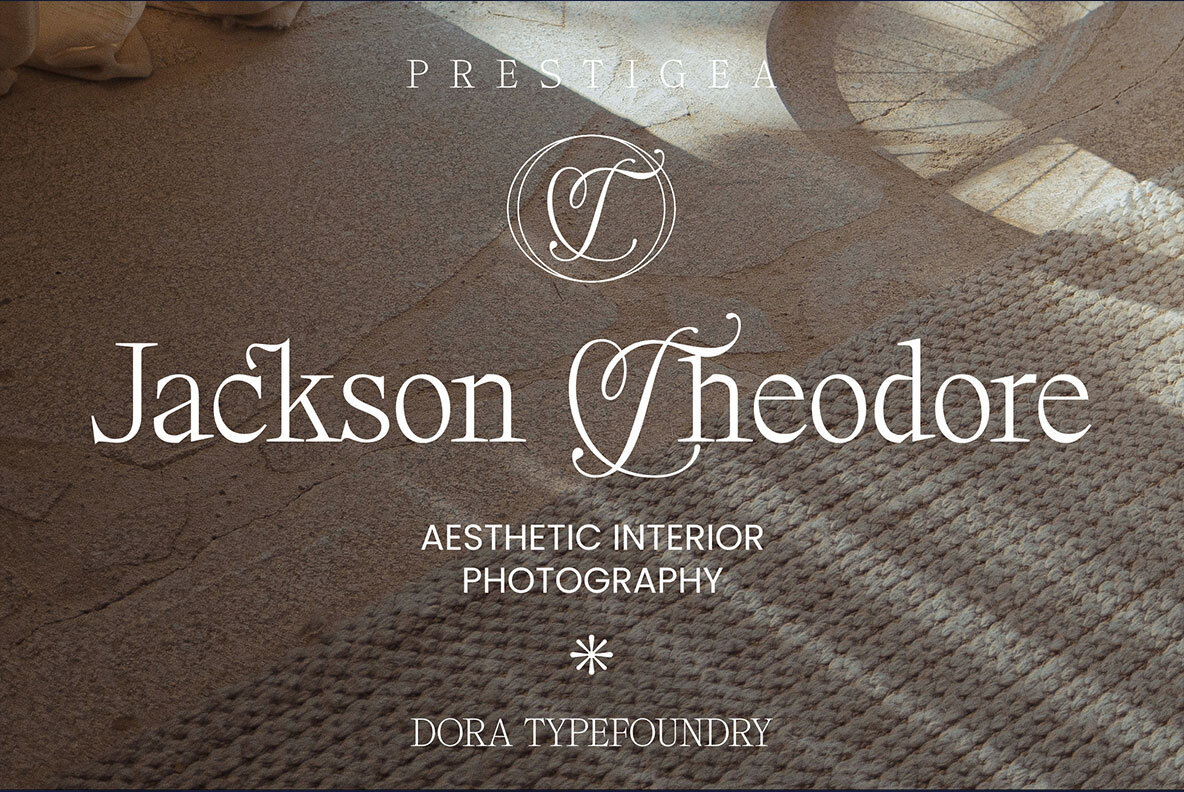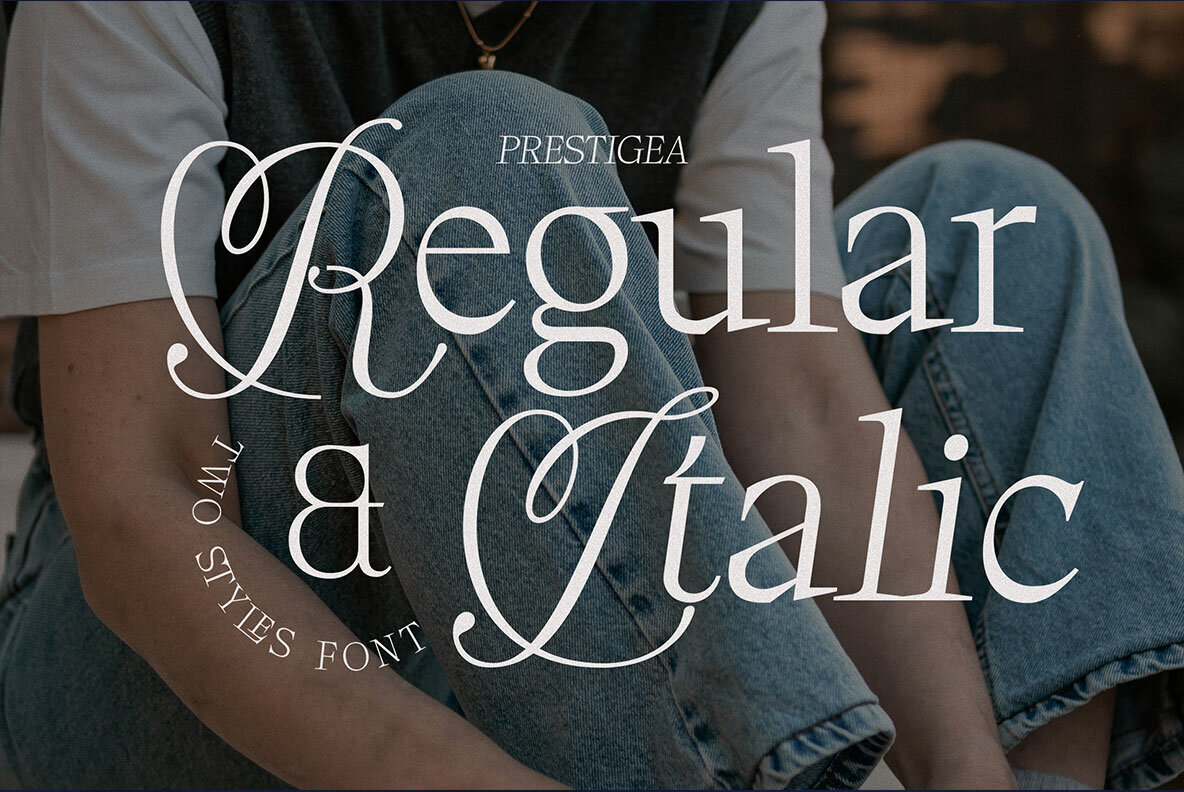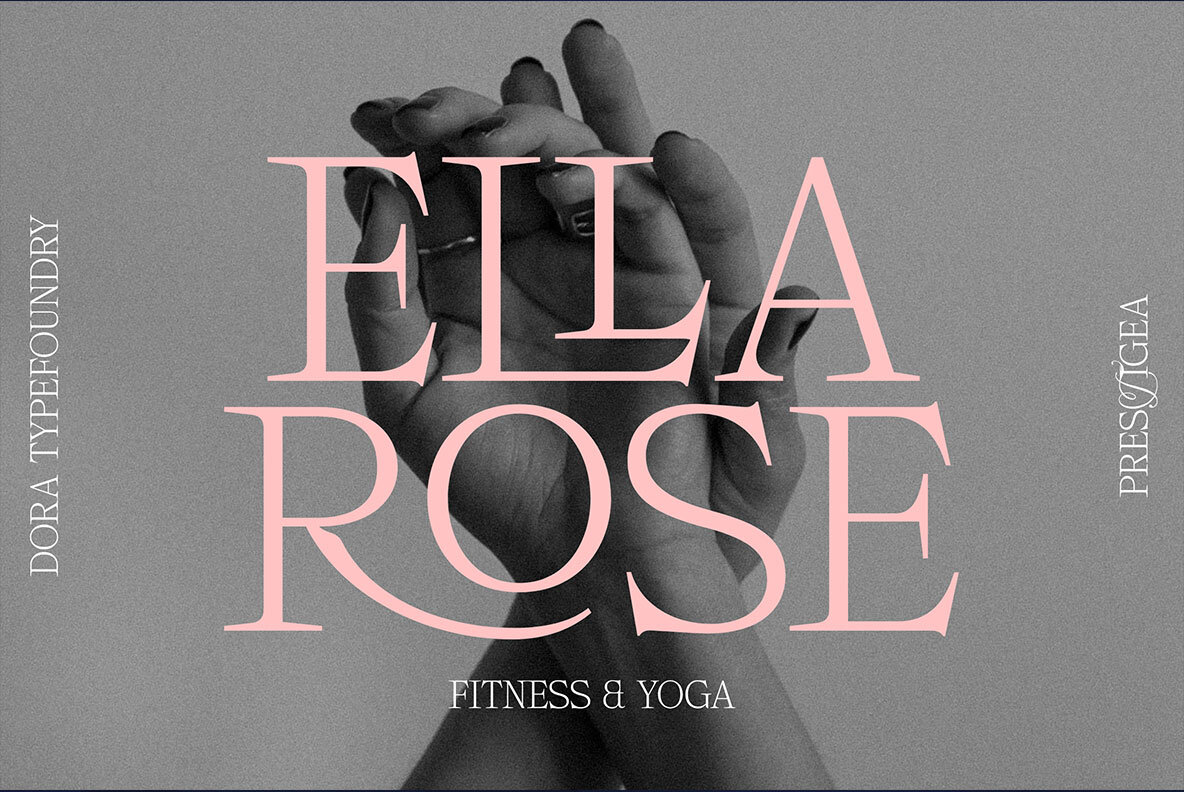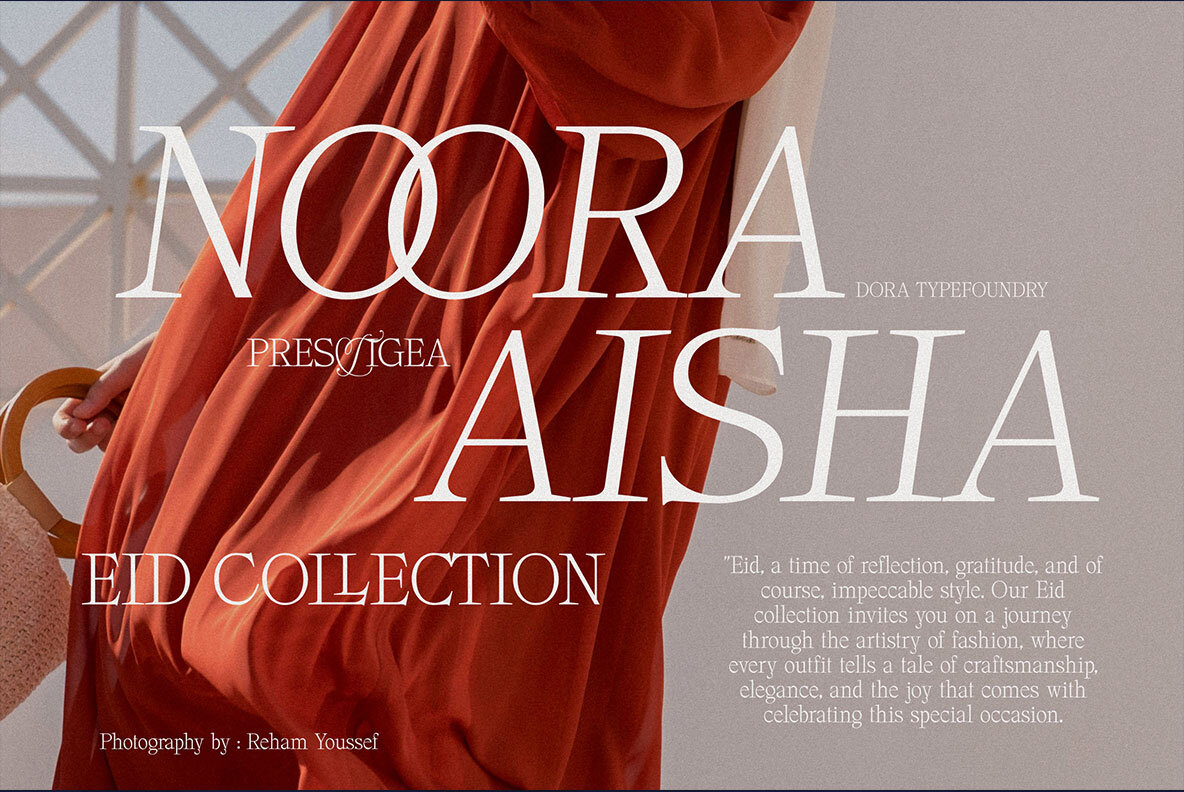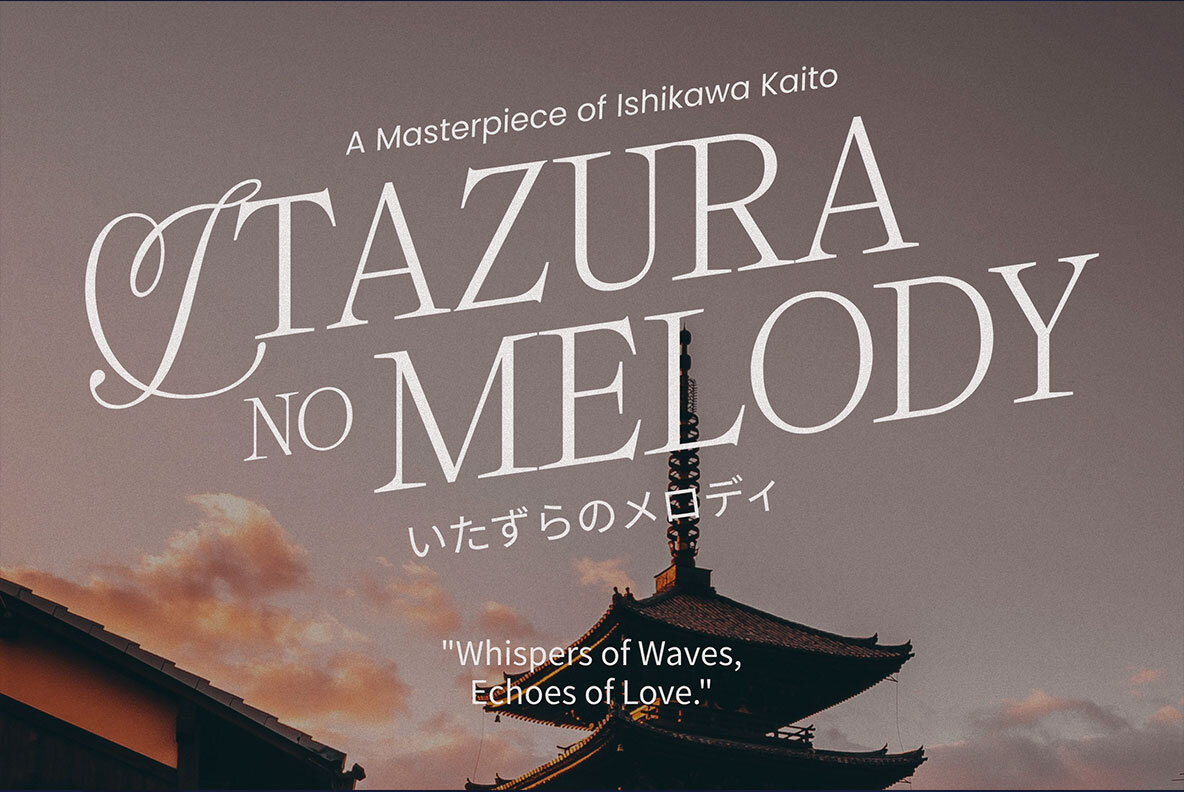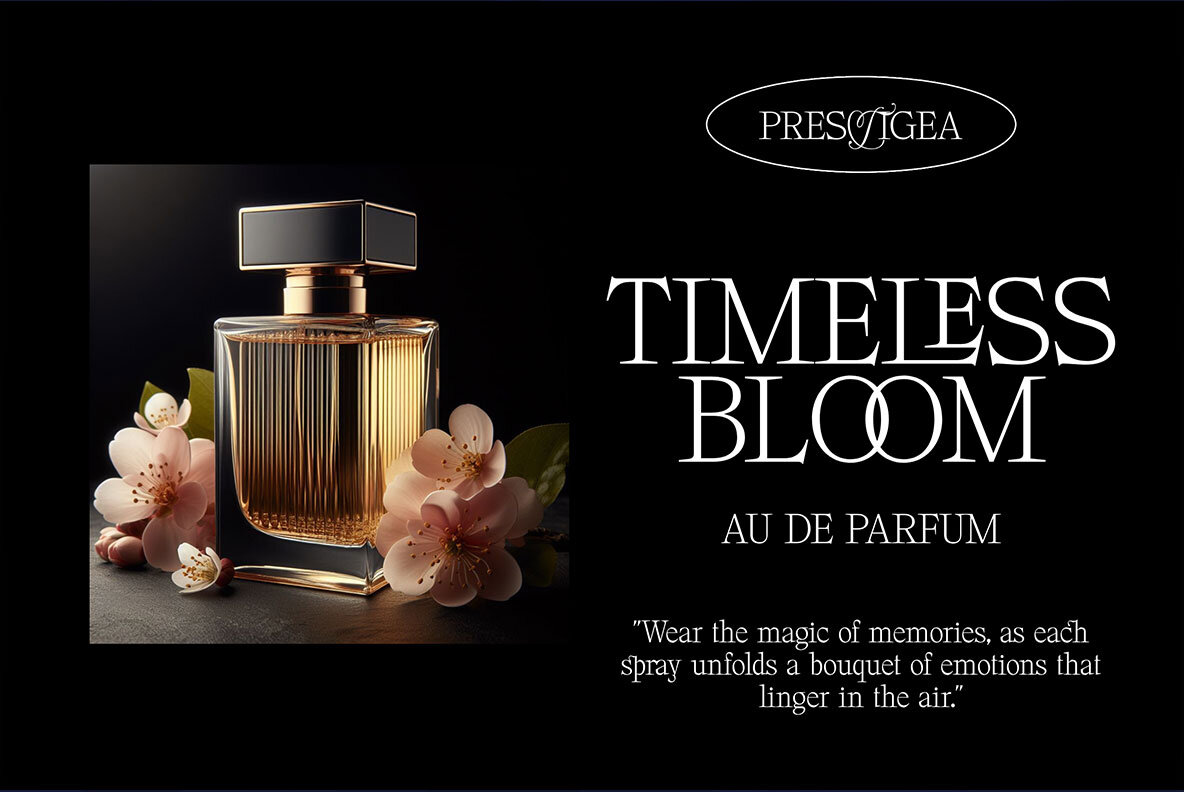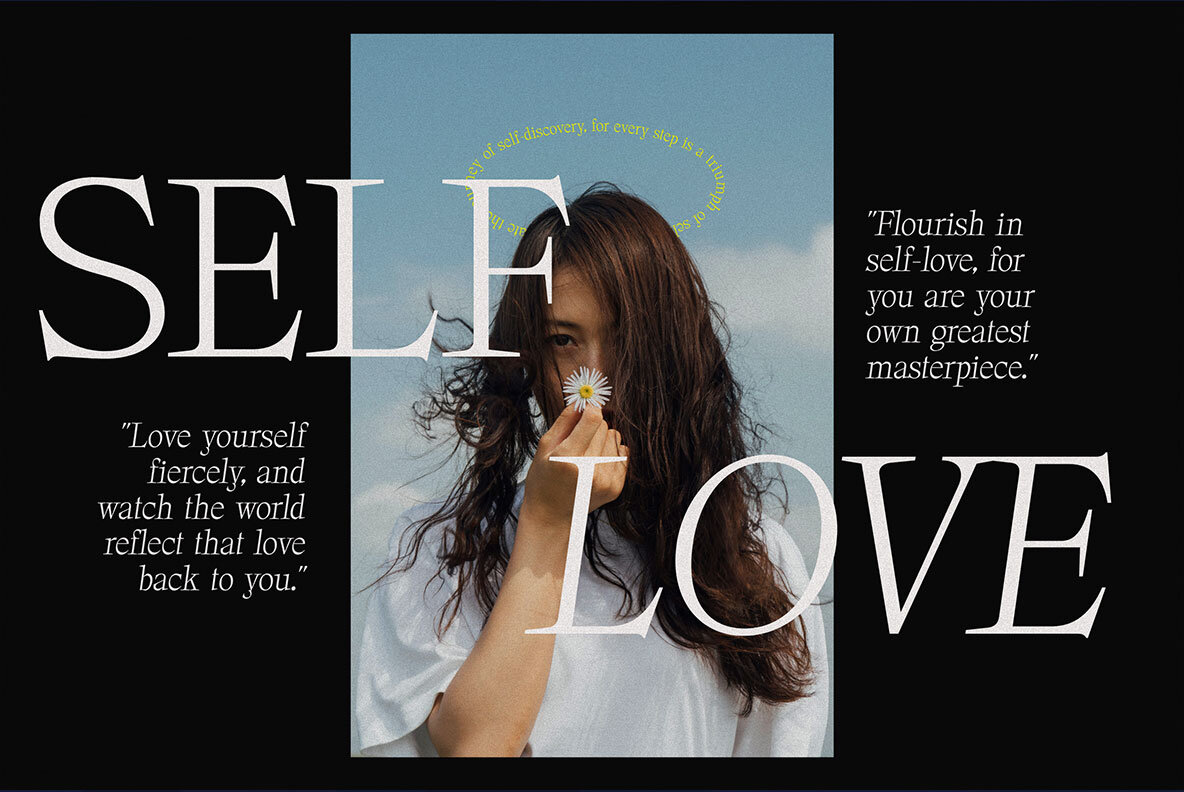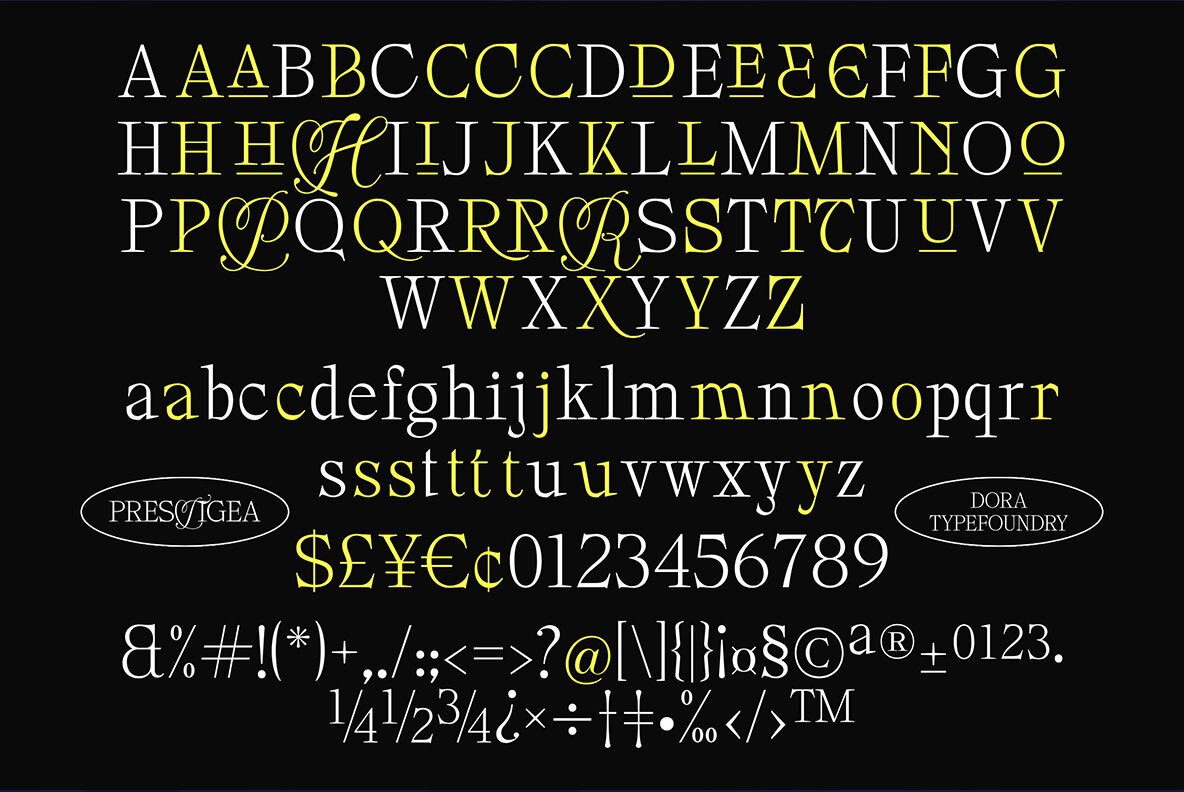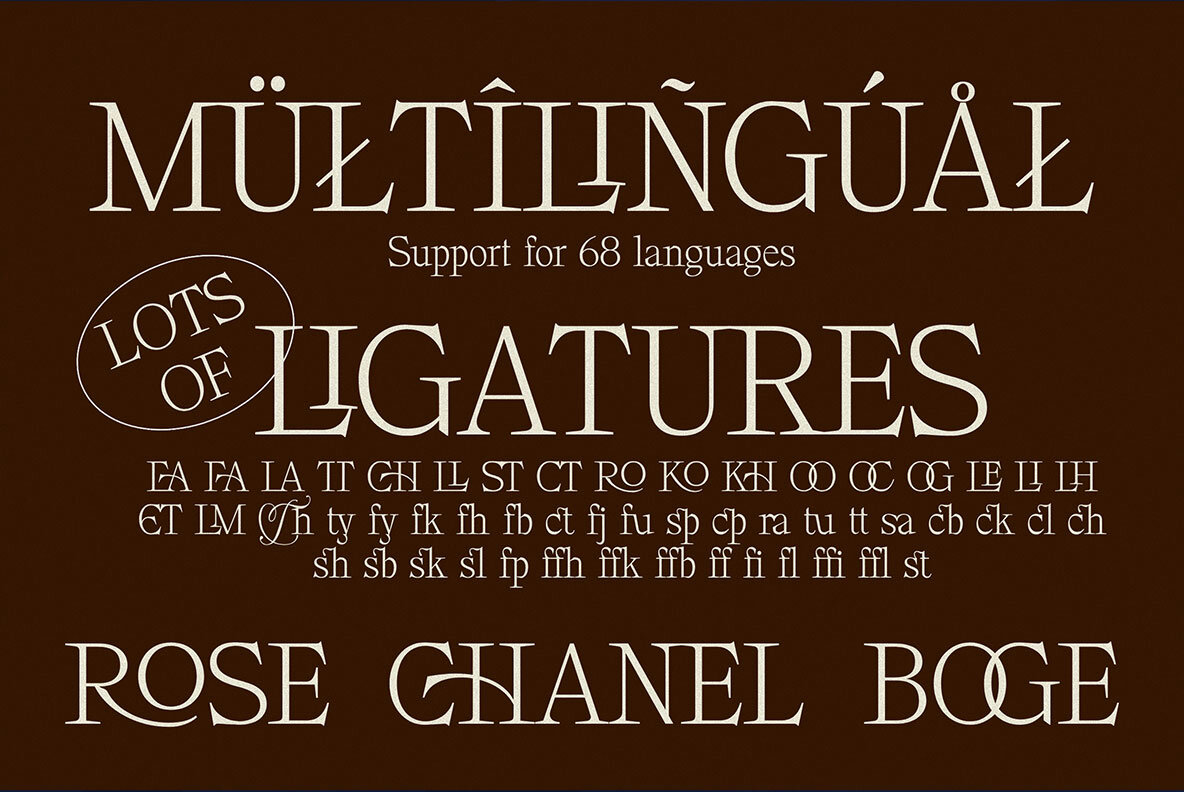
Prestigea Font
Prestigea is a simple yet refined serif display font, enriched with elegant and nostalgic script letters. This font features over 50 ligatures and 51 alternate glyphs, making it versatile for a variety of design needs. Ideal for branding projects, logos, wedding designs, social media posts, advertisements, product packaging, labels, photography, watermarks, invitations, and stationery. To unlock the full potential of the Prestigea font, we recommend using design applications that support OpenType features and offer accessible Glyphs panels, such as Adobe apps and Corel Draw. Enjoy the creativity this font family brings to your projects!Prestigea: Elegant Serif Display Font with Nostalgic Touch